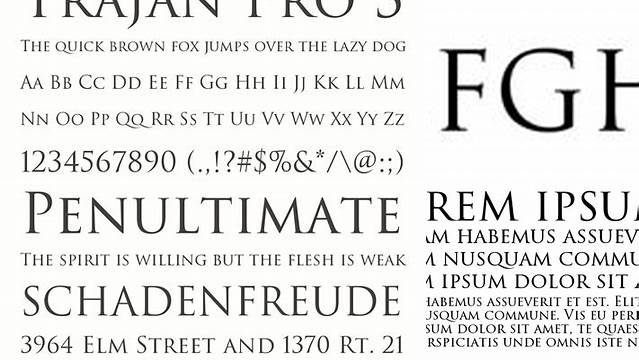
Are you looking for a classic and elegant font to elevate your design projects? Look no further than Trajan 3 Regular! This font, a modern adaptation of the iconic Trajan typeface, exudes sophistication and authority, making it a perfect choice for a wide range of applications. In this comprehensive article, we'll delve into the history, characteristics, and best uses of Trajan 3 Regular, and guide you on how to download this font for free and incorporate it into your creative endeavors. So, buckle up, design enthusiasts, and let's explore the world of Trajan 3 Regular!
What is Trajan 3 Regular Font?
Before we dive into the specifics of Trajan 3 Regular, let's first understand its origins. The original Trajan typeface was designed by Carol Twombly in 1989 for Adobe. It was inspired by the lettering on the Trajan Column in Rome, a monument erected in 113 AD to commemorate Emperor Trajan's victory in the Dacian Wars. The letterforms on the column are considered some of the finest examples of Roman square capitals, and Twombly masterfully captured their essence in her digital typeface. Trajan quickly became a favorite among designers, particularly for projects requiring a sense of history, grandeur, and formality.
Trajan 3 Regular is a contemporary interpretation of the classic Trajan. While retaining the elegance and authority of its predecessor, Trajan 3 Regular offers a slightly refined and modernized look. The serifs are sharper, the strokes are more consistent, and the overall design feels cleaner and more legible, especially at smaller sizes. This makes Trajan 3 Regular a versatile choice for both print and digital applications. This versatile font makes it perfect for everything from headlines to body text. One of the key characteristics of Trajan 3 Regular is its all-caps design. Like the original Trajan, it does not have a lowercase alphabet. This limitation might seem restrictive at first, but it is actually part of the font's charm and contributes to its distinctive look. The absence of lowercase letters reinforces the font's sense of formality and authority, making it ideal for titles, headings, and short blocks of text where impact and readability are paramount. However, it is important to use Trajan 3 Regular judiciously and avoid using it for long passages of text, as the all-caps design can become tiring to read.
The letterforms of Trajan 3 Regular are characterized by their strong vertical strokes, elegant serifs, and balanced proportions. The serifs, the small decorative strokes at the ends of the letterforms, are particularly noteworthy. They are sharp, clean, and contribute to the font's overall sense of refinement. The spacing between the letters is also carefully considered, ensuring optimal readability and visual appeal. The weight of the strokes is consistent throughout the font, creating a sense of harmony and balance. Trajan 3 Regular is a timeless font, evoking a sense of history and prestige. Its clean lines and balanced proportions make it easy to read, while its elegant serifs add a touch of sophistication. Whether you're designing a book cover, a website header, or a logo, Trajan 3 Regular will help you create a look that is both classic and contemporary.
Key Characteristics of Trajan 3 Regular
Let's break down the key characteristics that make Trajan 3 Regular such a distinctive and sought-after font:
- All-Caps Design: As mentioned earlier, Trajan 3 Regular is an all-caps typeface, meaning it does not include lowercase letters. This feature contributes significantly to its formal and authoritative appearance.
- Strong Vertical Strokes: The strong vertical strokes in the letterforms create a sense of stability and strength, further enhancing the font's authoritative feel.
- Elegant Serifs: The sharp and clean serifs add a touch of sophistication and refinement to the font. They are a defining characteristic of the Trajan family and contribute to its overall visual appeal.
- Balanced Proportions: The letterforms are carefully proportioned, ensuring a harmonious and balanced appearance. This contributes to the font's readability and visual appeal.
- Modern Interpretation: While rooted in classical Roman letterforms, Trajan 3 Regular offers a slightly modernized and refined look compared to the original Trajan. This makes it suitable for contemporary design projects.
- Versatile Application: Trajan 3 Regular is a versatile font that can be used in a variety of design projects, from print to digital. It is particularly well-suited for titles, headings, logos, and short blocks of text.
Best Uses for Trajan 3 Regular
So, where does Trajan 3 Regular shine the most? Its inherent elegance and authority make it an excellent choice for projects that require a sense of history, prestige, and sophistication. Here are some specific examples:
- Logos and Branding: Trajan 3 Regular is a popular choice for logos, particularly for brands that want to project an image of stability, trustworthiness, and elegance. Think of luxury brands, law firms, museums, and historical institutions. The font's classic appeal makes it a great font for logos. Its strong presence can instantly elevate a brand's image, conveying a sense of authority and sophistication.
- Headlines and Titles: Its strong presence and clear legibility make it ideal for headlines and titles in books, magazines, websites, and posters. Trajan 3 Regular commands attention and effectively conveys the message. The font's bold and authoritative nature makes it perfect for grabbing the reader's attention and setting the tone for the content that follows.
- Movie Posters and Book Covers: Trajan 3 Regular has become a staple in the entertainment industry, frequently used on movie posters and book covers, especially for historical dramas, epic films, and serious works of literature. Its ability to evoke a sense of history and grandeur makes it a perfect fit for these genres. The font's classic appeal and dramatic flair make it an excellent choice for capturing the essence of a story and drawing the audience in.
- Invitations and Stationery: For formal events like weddings, galas, and corporate events, Trajan 3 Regular adds a touch of elegance and sophistication to invitations, stationery, and other printed materials. Its refined appearance conveys a sense of importance and formality, making it the perfect choice for these special occasions.